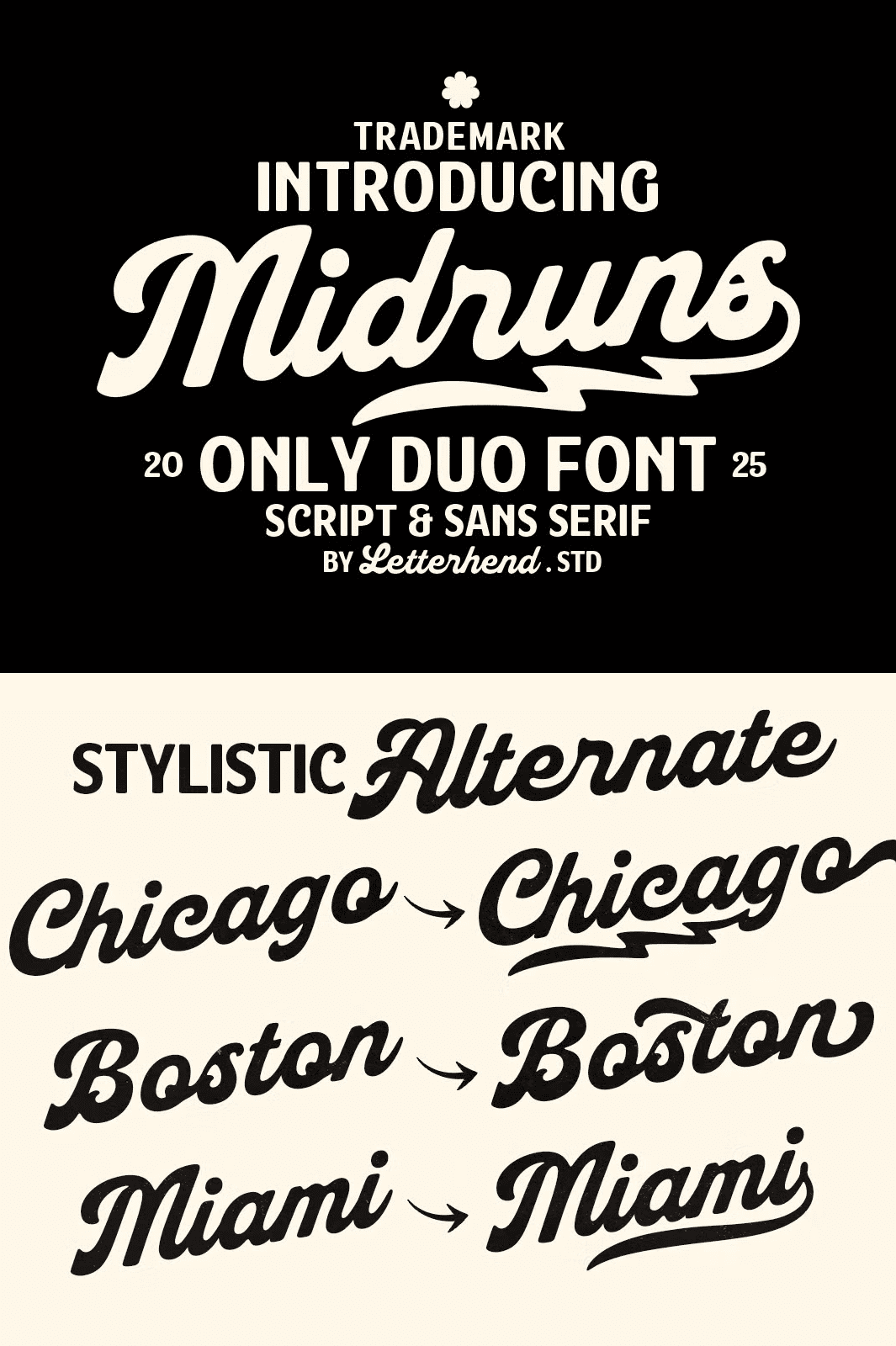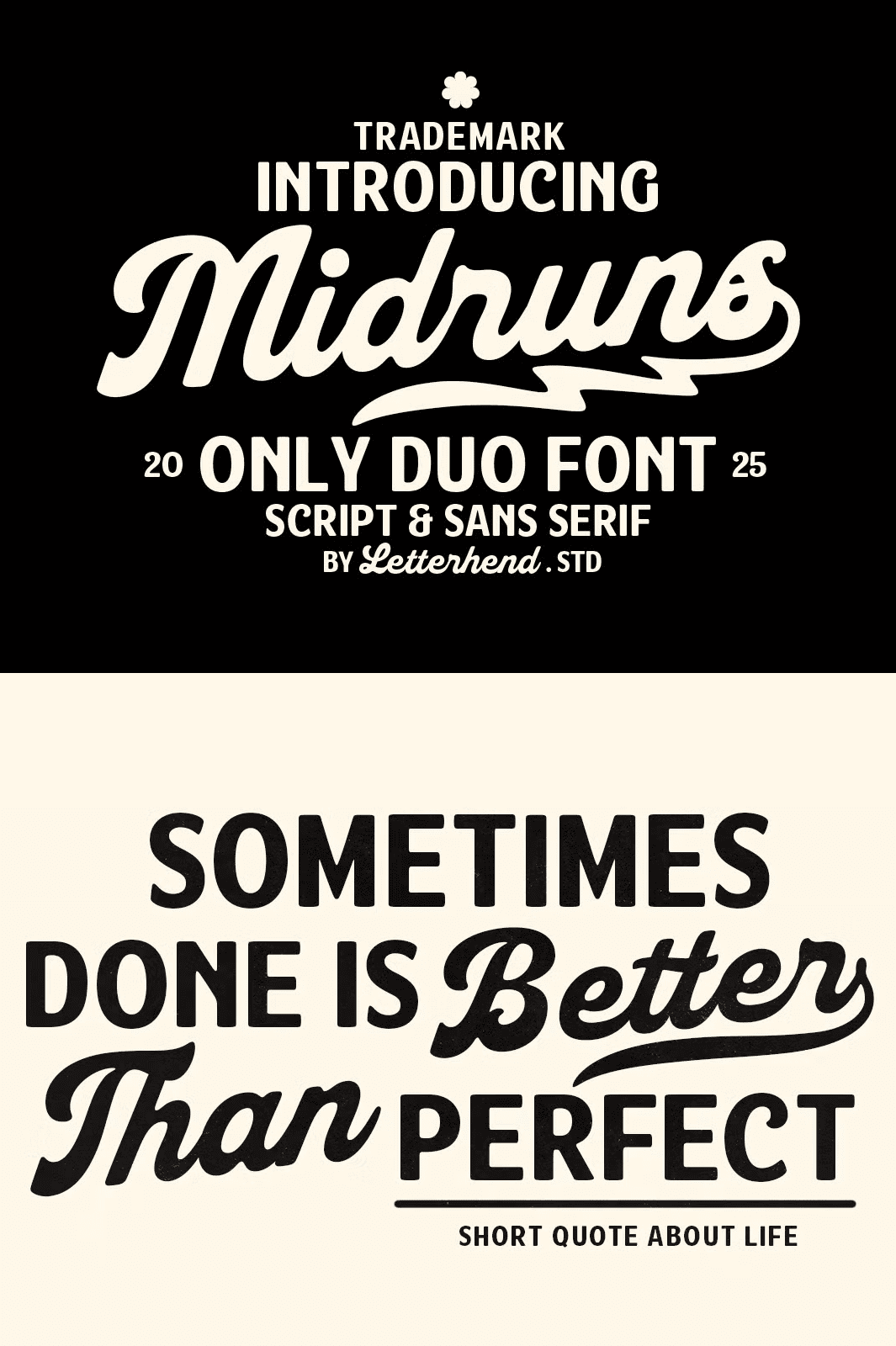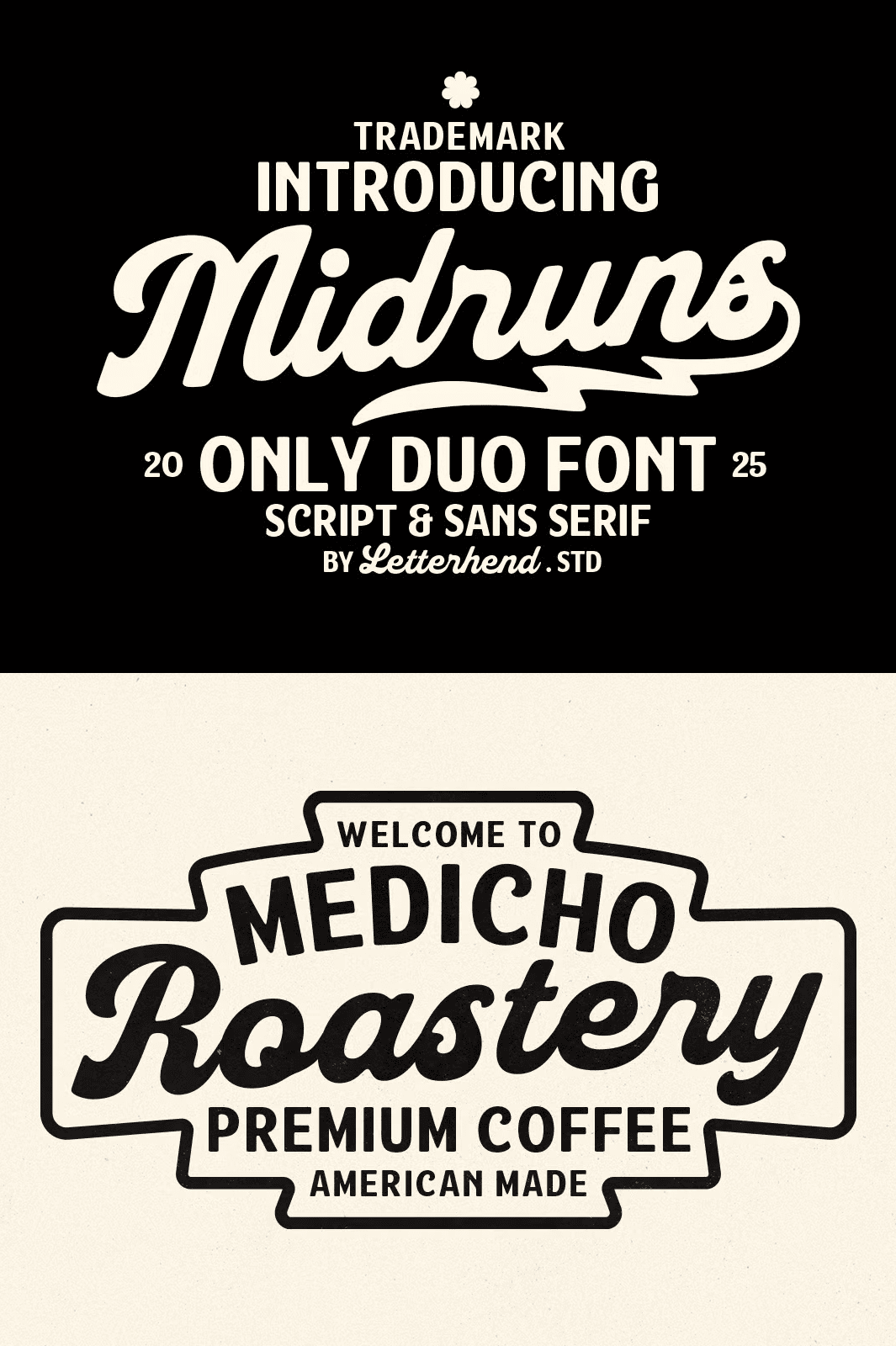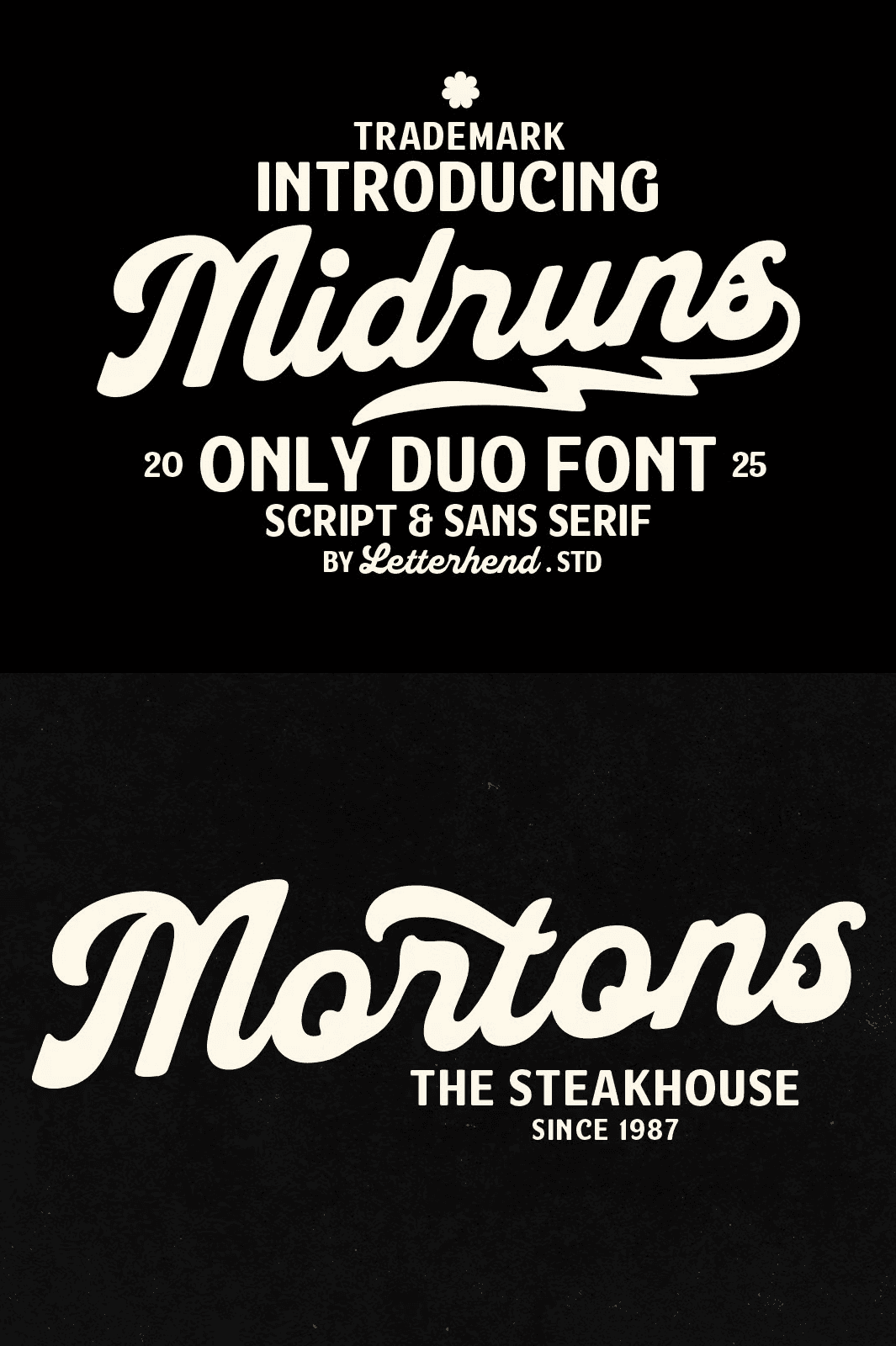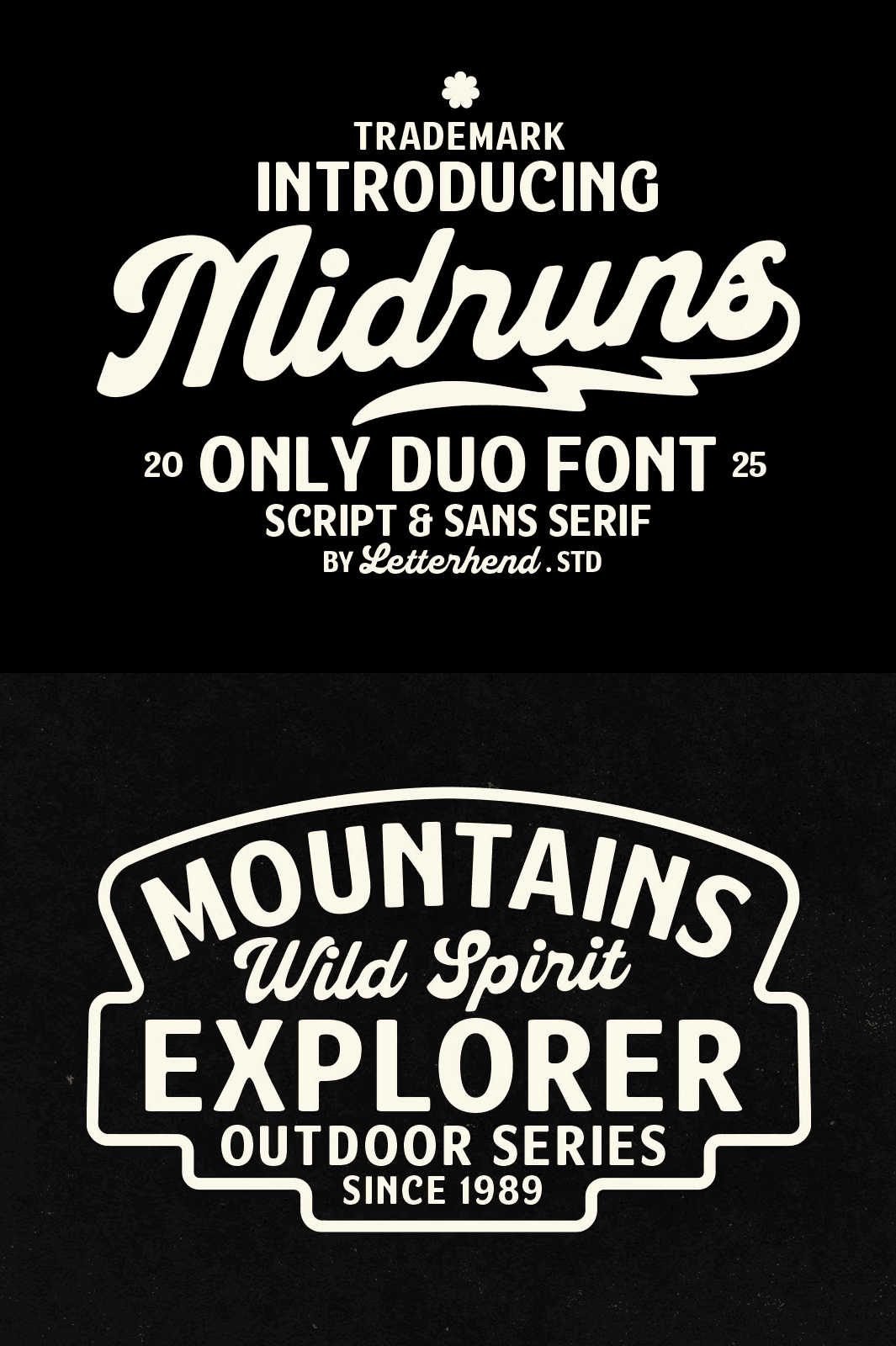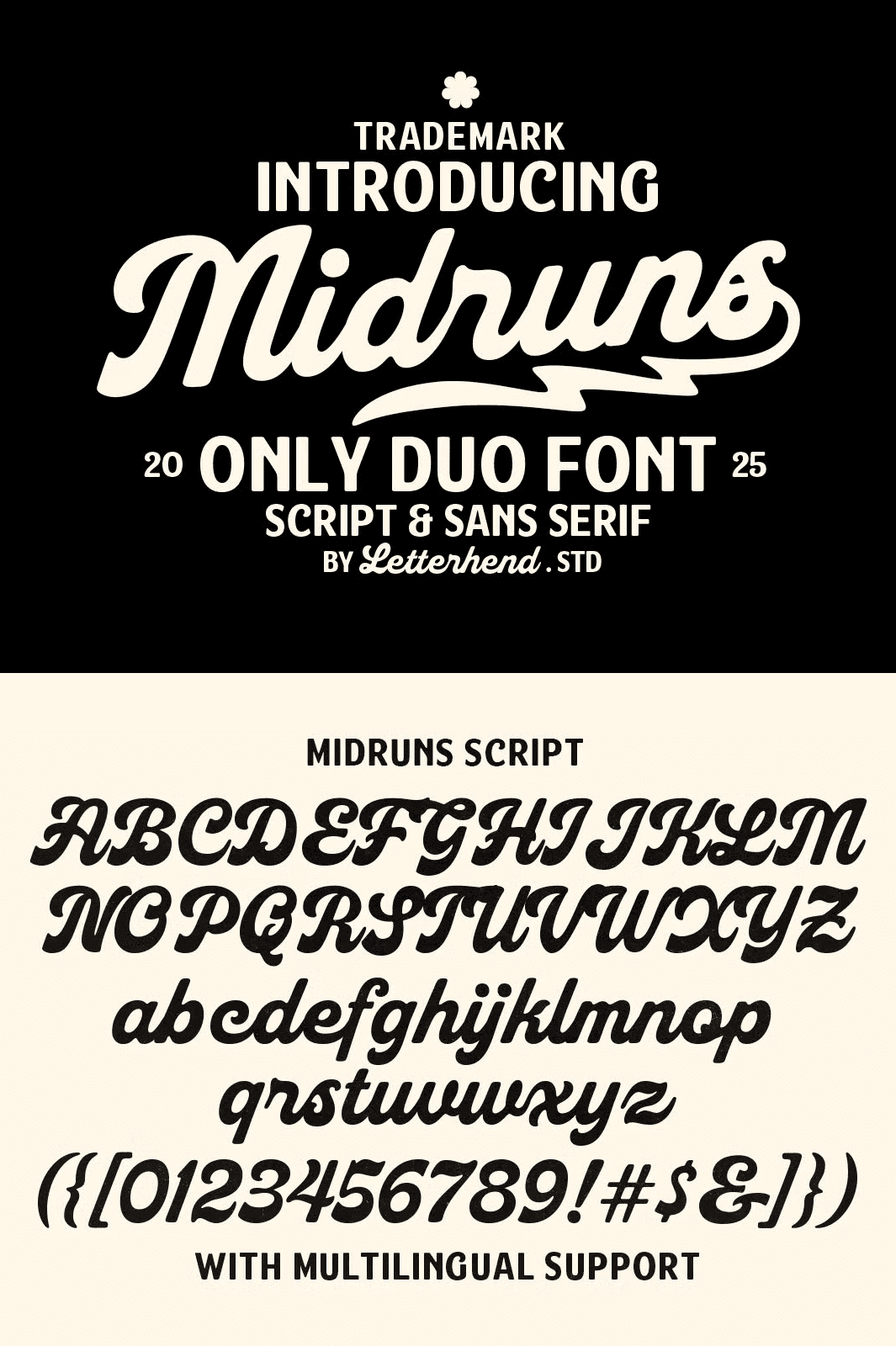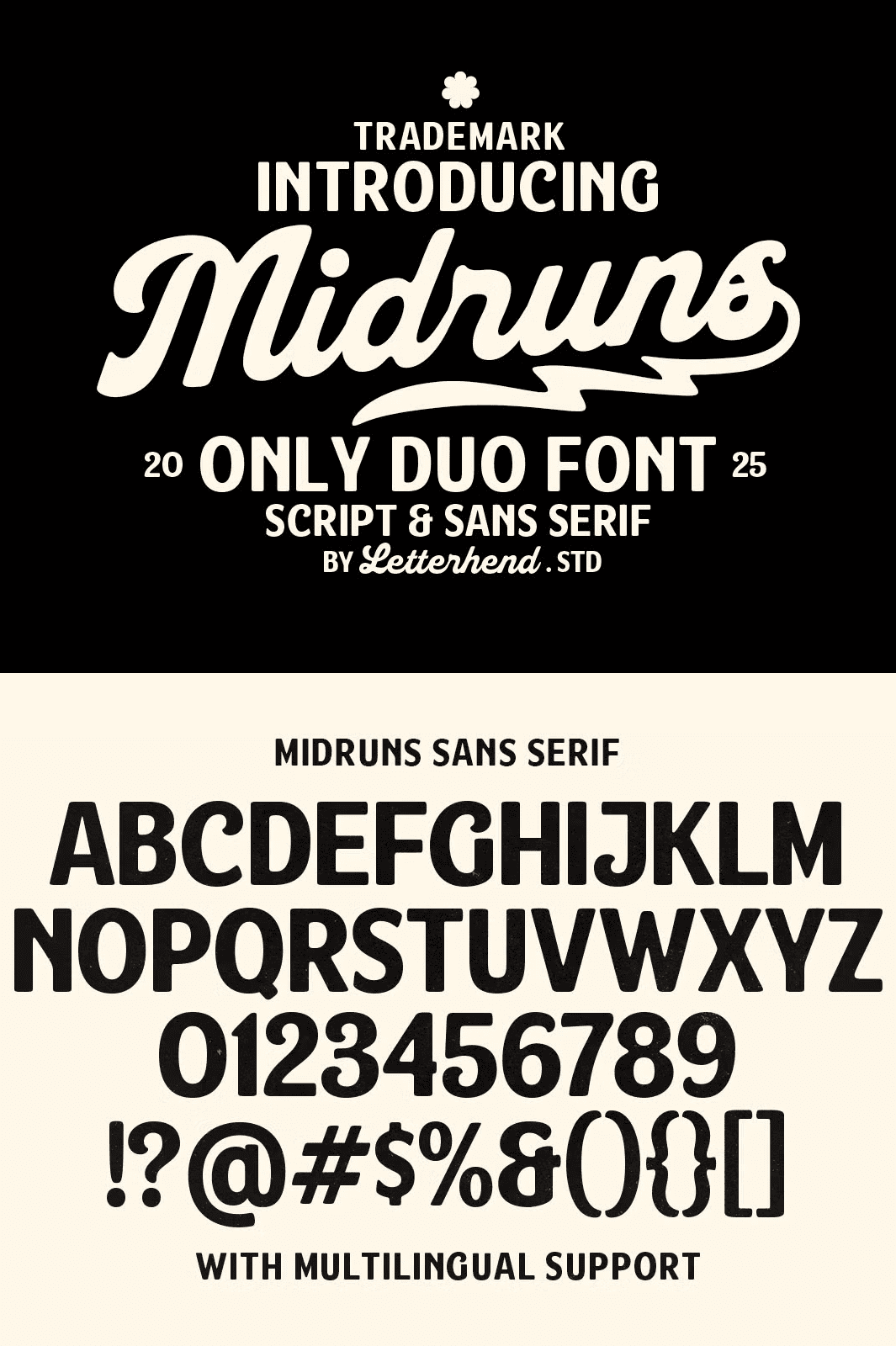
Midruns Font Duo
A Dynamic Typeface Duo That Combines Vintage Energy with Contemporary Precision
The **Midruns Font Duo** isn’t just a font it’s a creative catalyst. Born from a bold vision to merge retro aesthetics with modern functionality, this dynamic duo delivers two powerful complementary styles: a flowing, expressive script and a crisp, clean sans-serif typeface. Together, they create a striking visual contrast that commands attention while maintaining exceptional readability and design versatility.
Whether you’re crafting a high-impact logo, designing a bold branding package, creating packaging with personality, producing standout apparel, building eye-catching signage, or developing social media content that engages, Midruns delivers the perfect balance of vintage flair and timeless clarity.
The script variant pulses with energy and individuality, featuring smooth, flowing curves and a handcrafted feel that elevates any project with expressive character. Meanwhile, the sans-serif counterpart ensures structural integrity and legibility across all applications making it the ideal anchor for modern, clean layouts.
Explore All Features Designed for Professional Designers
Midruns is engineered with serious creatives in mind. Every feature is built to support real-world design challenges and enhance efficiency:
– Full uppercase and lowercase letter support
– Complete numeric and punctuation sets
– Extensive alternates and ligature options for unique typographic variation
– Multilingual character support for global design needs
– PUA encoding for easy access to special glyphs and symbols
This comprehensive toolkit empowers designers to experiment freely, tailor their typography to specific brand voices, and ensure every letter carries intentional impact.
Empower your next project with Midruns Font Duo — where bold script meets modern clarity. Its dynamic range, professional features, and creative flexibility make it the essential tool for designers who demand both originality and reliability in every word they set.